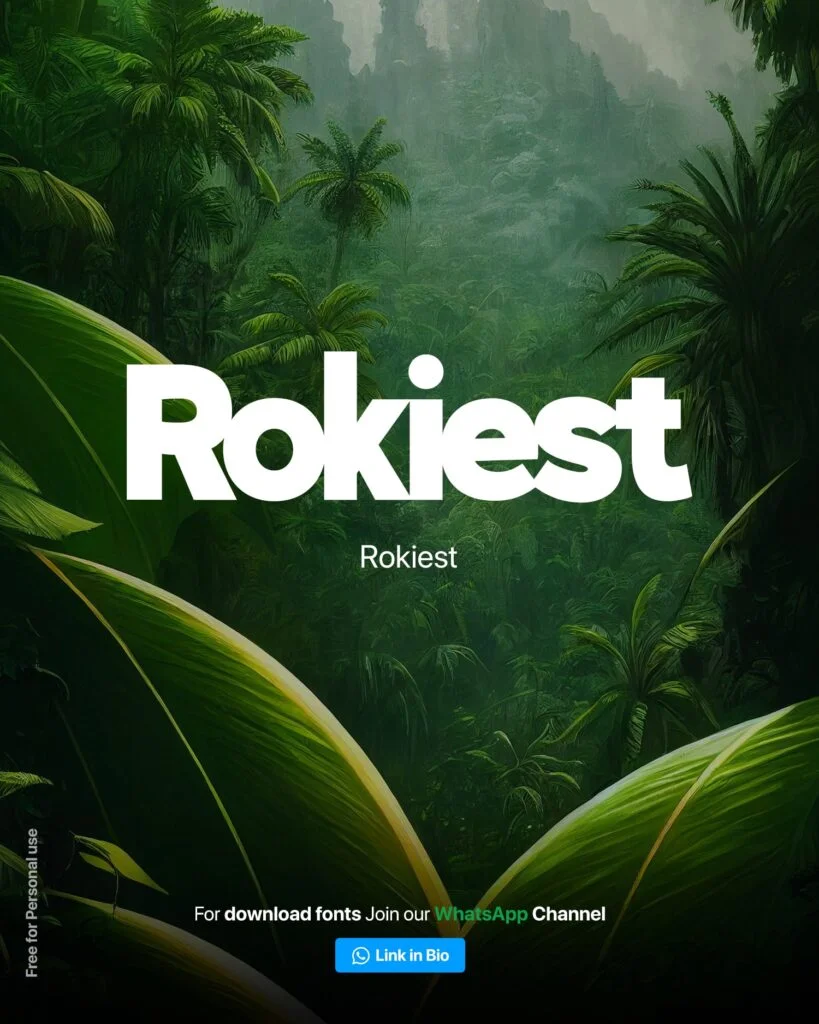
Bold Fonts Pick for Designers: Social Media, Packaging, and Beyond
Bold fonts are a designer’s secret weapon. Their strong visual impact can transform any project, from the digital realm of social media and UI/UX to the tangible world of packaging and wedding albums. Let’s explore six bold font options that can elevate your designs
Confine Font
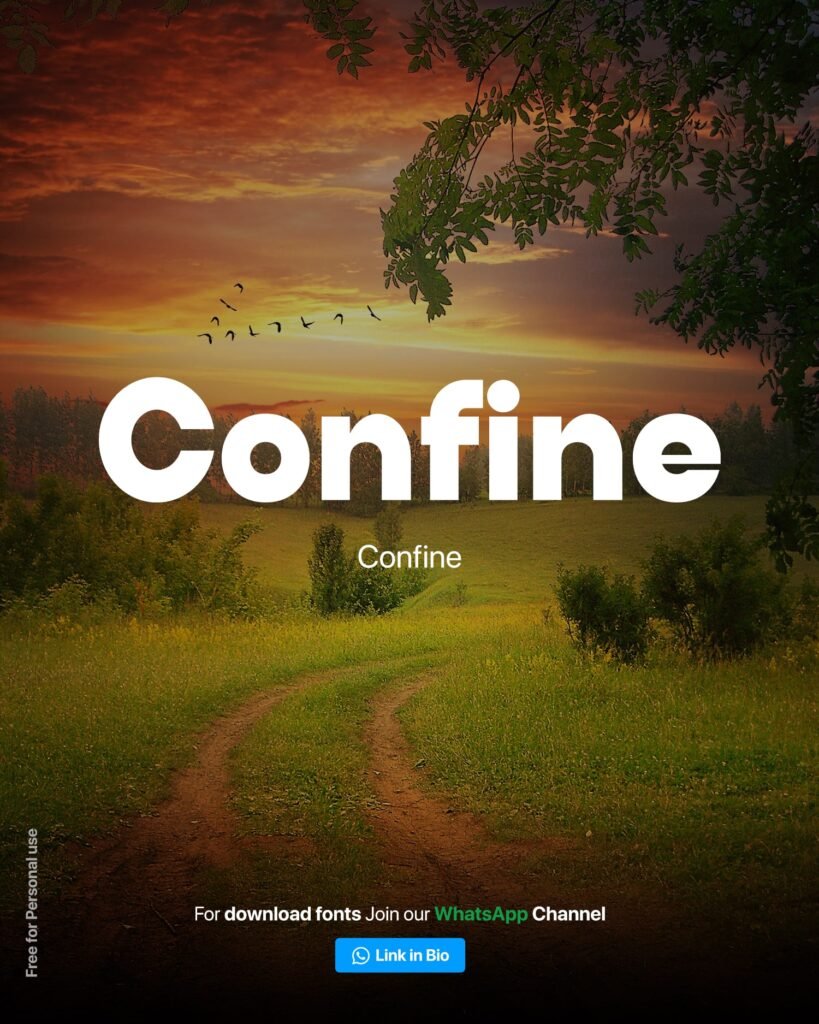
Rokiest Font
Rogbold Font
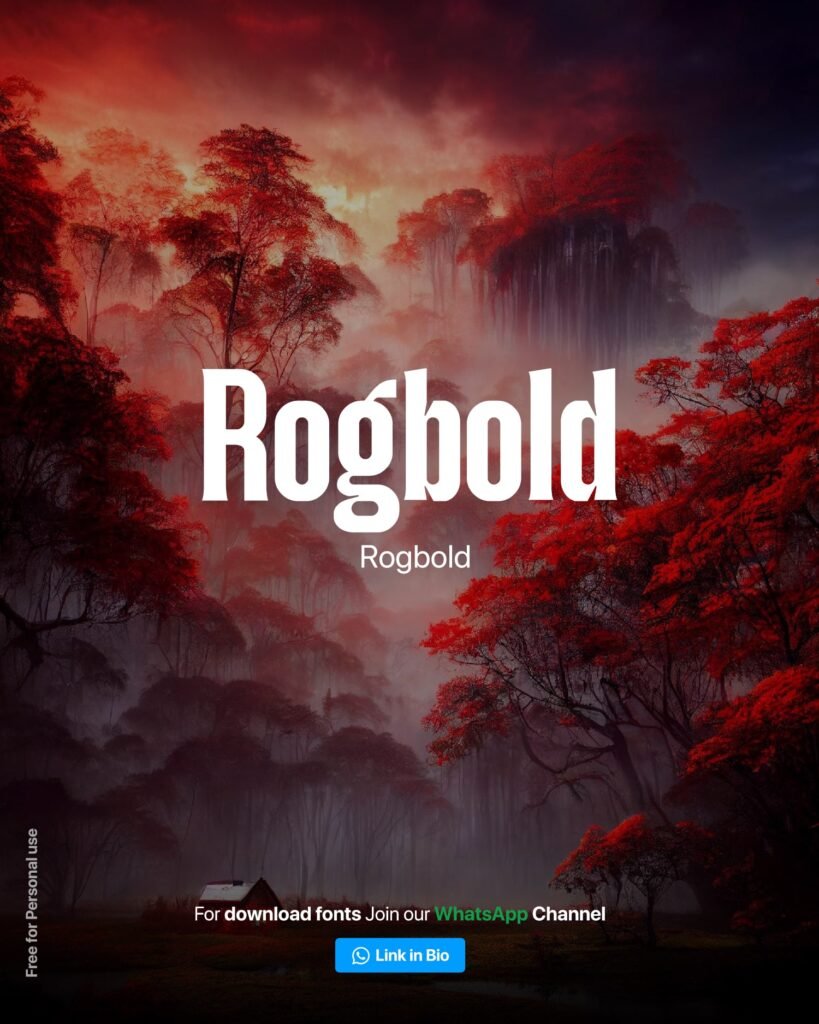
Mosafin Font
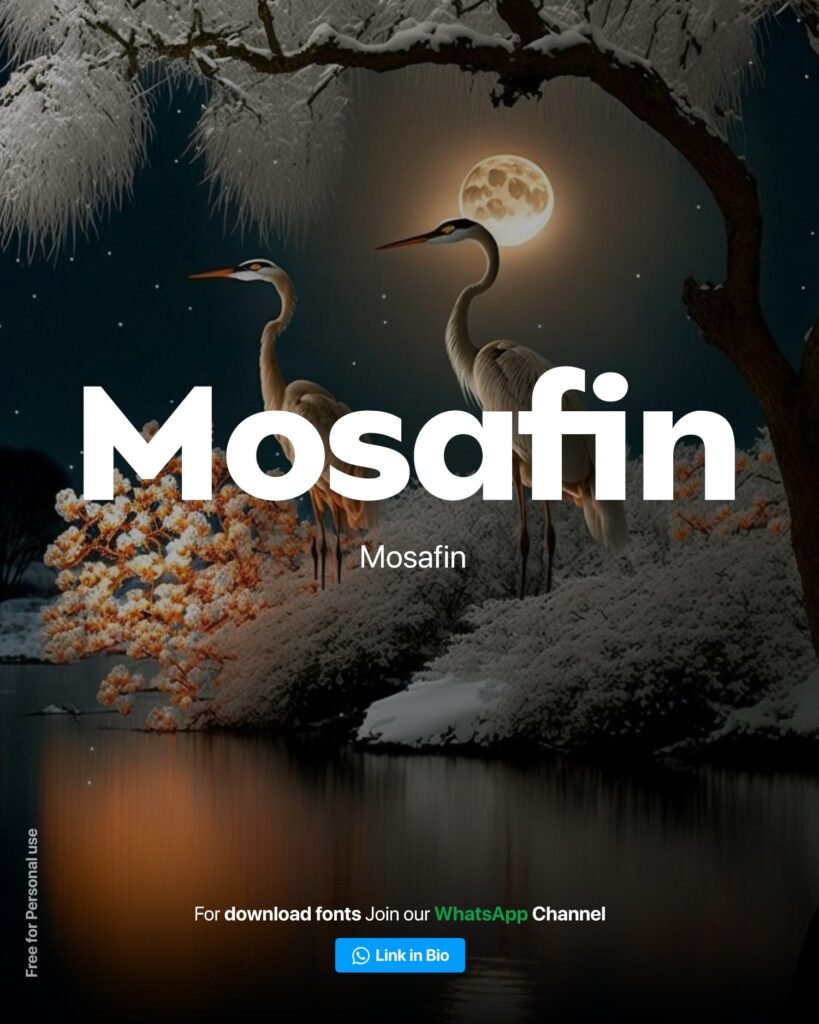
Headline Font
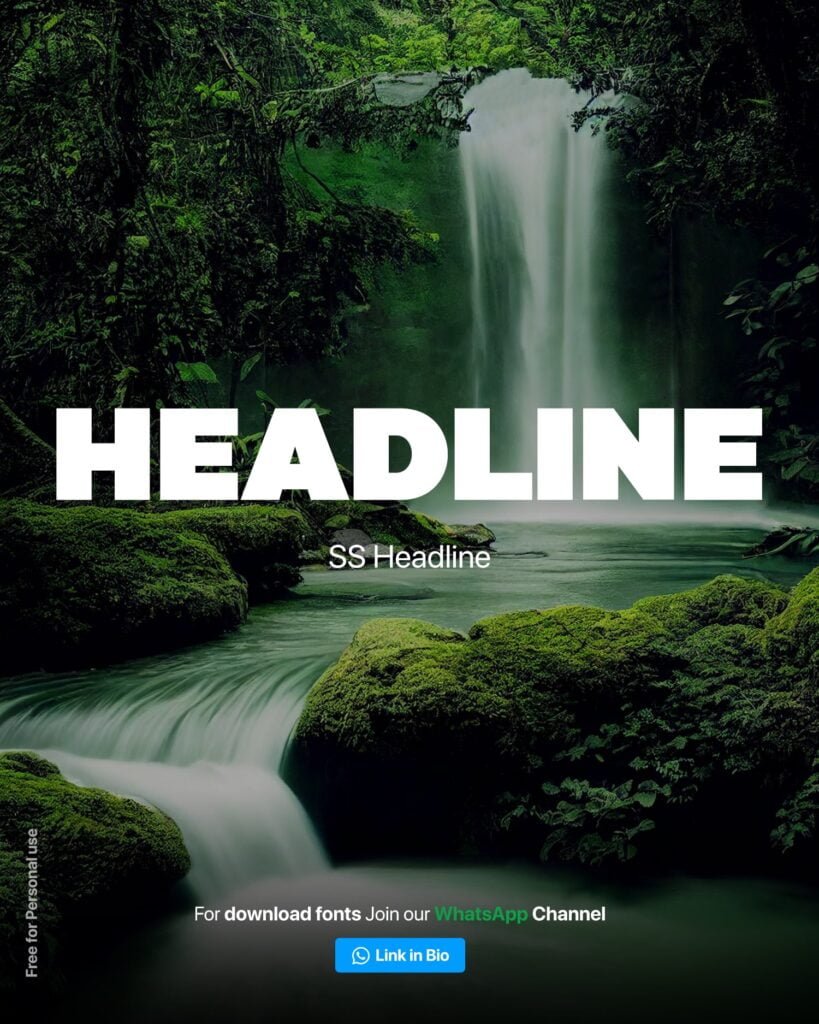
Bolde Font
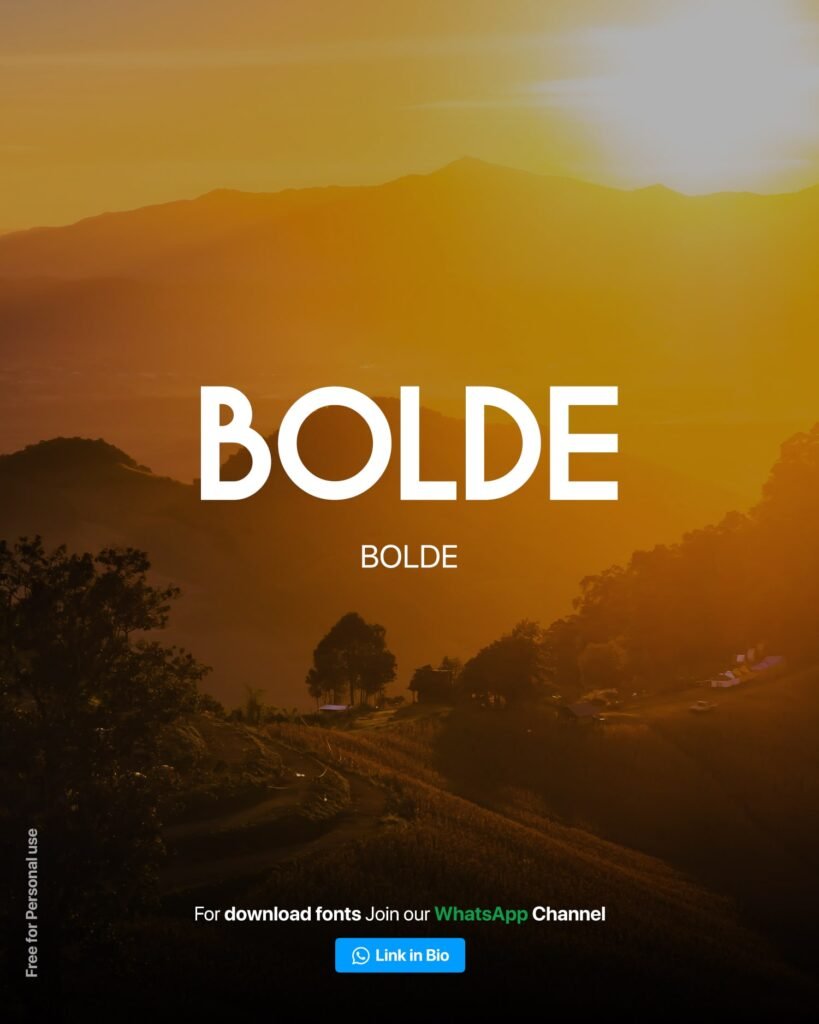
Remember, while bold fonts can make a statement, they should be used judiciously. Balance is key. Combining a bold font with a more delicate typeface can create visual interest and enhance readability.